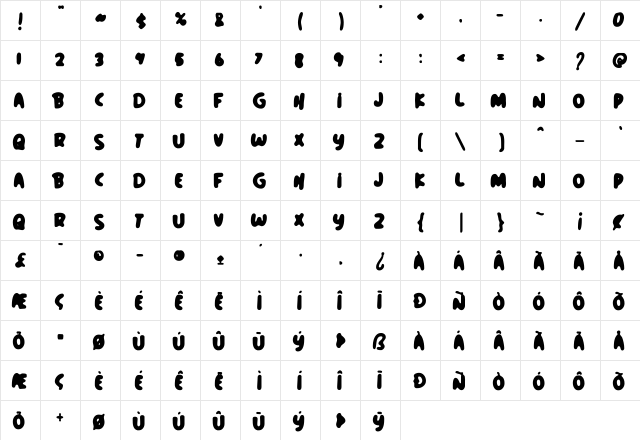
Bomber Balloon Regular
Design Context for Bomber Balloon Typeface
Bomber Balloon is a composed and adaptable typeface that performs quietly and consistently across a wide range of design contexts.